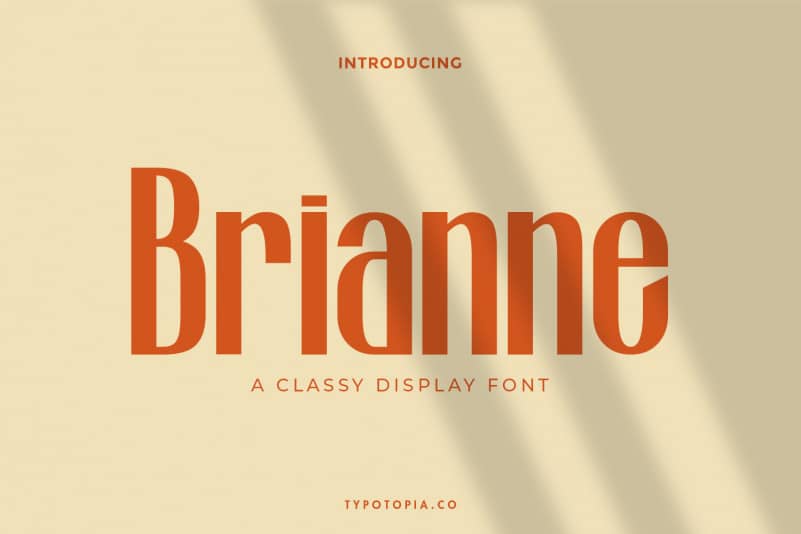
Brianne A Classy Display Font
Introducing Brianne Display Font is a Display Fonts with Semi-Vintage Style. This type of font perfectly made to be applied especially for logos, Poster, stationery, magazines, menus, books, invitations, greeting cards, packaging, labels, apparel, marketing, business cards, etc.